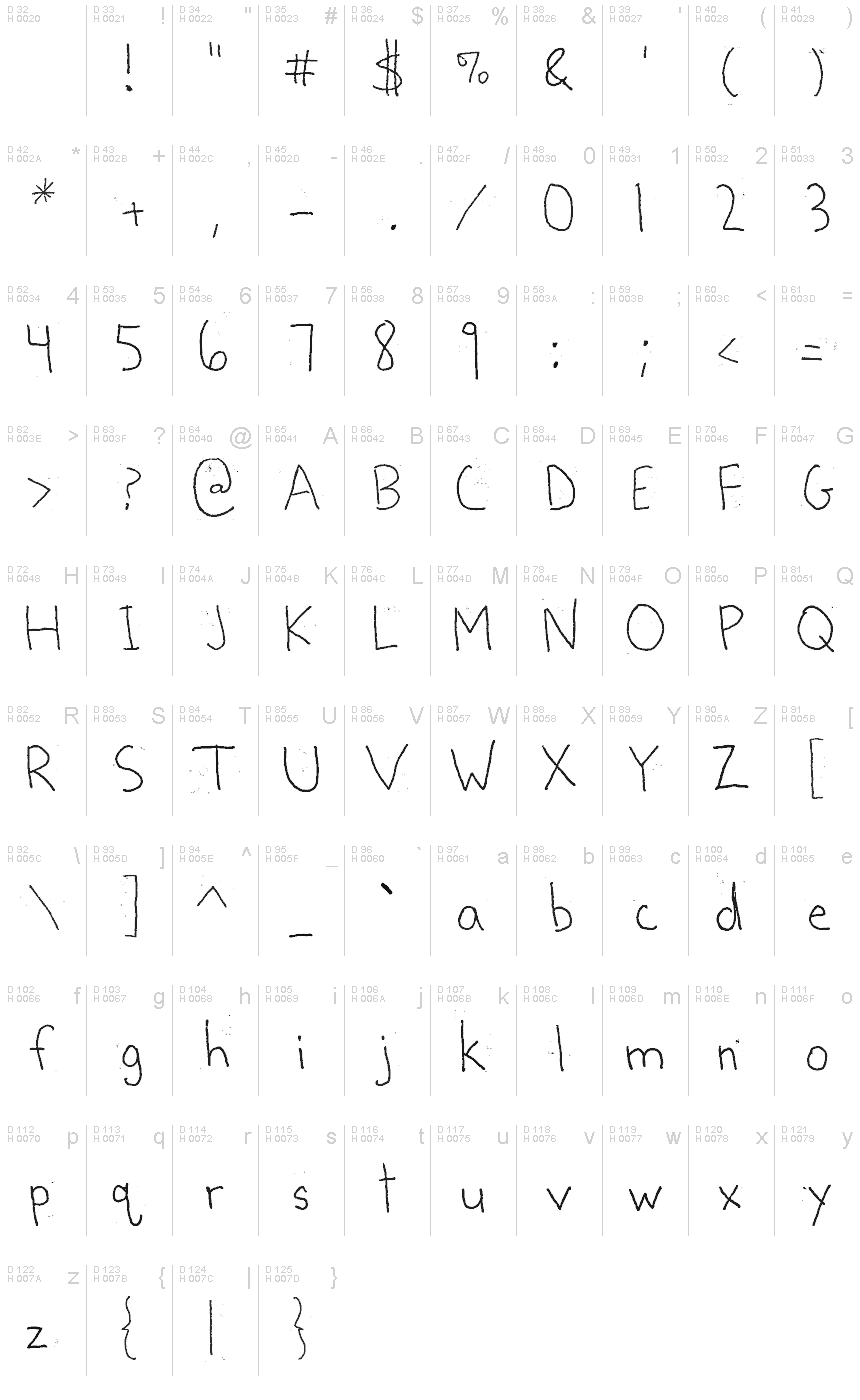
Shabby Ball Point
Shabby Ball Point, crafted by Anchor Fonts, exudes a raw and authentic handwritten charm that is both distinctive and appealing. With its extra-light weight, this typeface captures the essence of spontaneous scribbles made with a well-worn ballpoint pen. The uneven character strokes and varying line thicknesses convey a sense of personal touch and intimacy that is rarely found in digital typography.
The aesthetic appeal of Shabby Ball Point lies in its perfect imperfection, making it an excellent choice for projects seeking to evoke emotion or nostalgia. Whether it's for evocative branding, heartfelt invitations, or artistic editorial layouts, this font adds a unique narrative quality that can connect with audiences on a more human level.
With its handwritten style and casual elegance, Shabby Ball Point stands out as an ideal candidate for designers looking to infuse their work with personality and warmth without sacrificing legibility. Its versatility allows it to be used across various creative mediums—from print to digital—unlocking endless possibilities for those who choose to employ it.